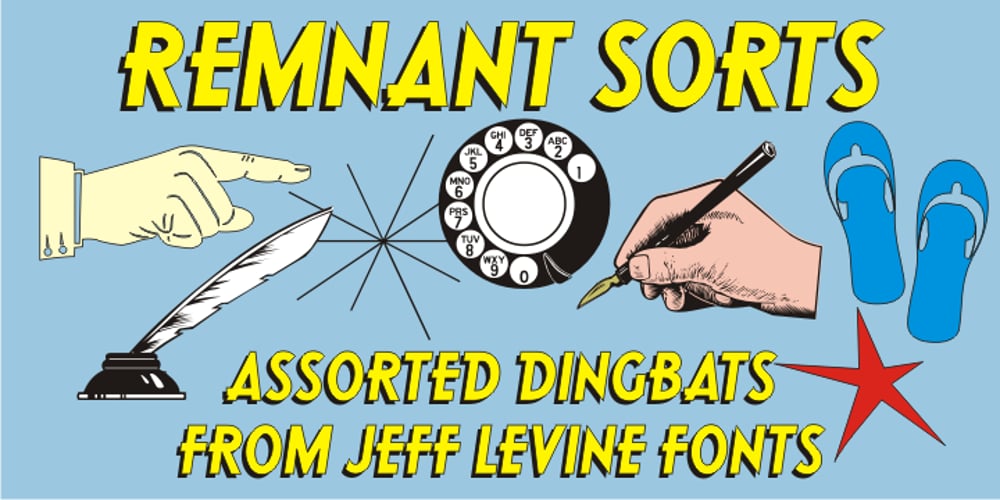
Remnant Sorts JNL Font Family was designed by Jeff Levine and published by Jeff Levine. Remnant Sorts JNL contains 1 styles and family package options. Remnant Sorts JNL is an assortment of twenty-six various images. Pointing hands, price tags, vintage stencil designs and other miscellany comprise the choices gathered in this font.